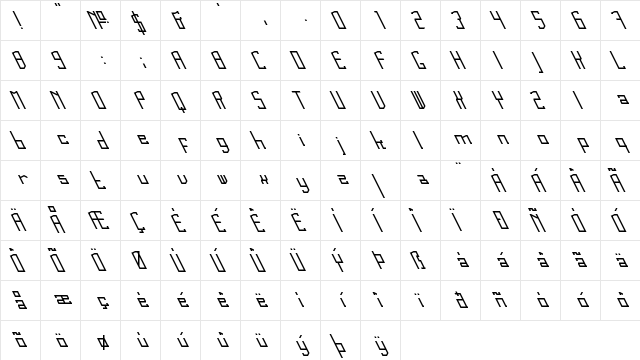
Leftleaning Regular
| Designer | opipik |
Design Context for Leftleaning Typeface
Leftleaning takes a measured approach to typography — its balanced proportions and neutral character make it a reliable workhorse for both digital and print work.